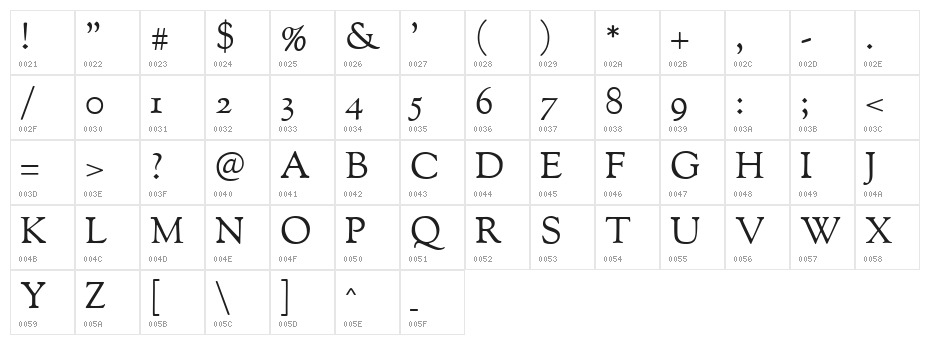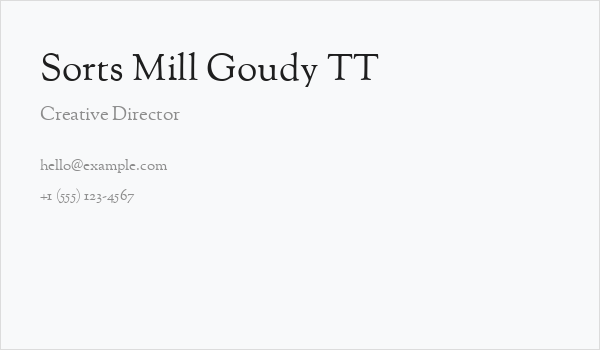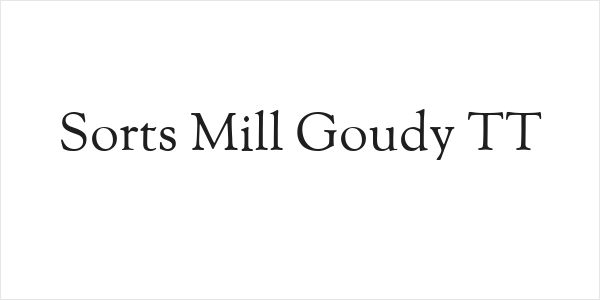
Sorts Mill Goudy TT Font
Sorts Mill Goudy TT Description
This font exudes a classic and timeless elegance, characterized by its refined serif details and balanced proportions. The uppercase letters stand tall with a slight contrast in stroke thickness, providing a sense of authority and sophistication. The lowercase letters maintain a harmonious flow, with gentle curves and a moderate x-height that enhances readability. Numerals are designed with clarity and precision, making them suitable for both text and display purposes. The special characters are thoughtfully crafted, ensuring consistency across the entire typeface. Overall, this font is versatile, offering a blend of traditional aesthetics with modern functionality.
| Use Case | Body text, Headlines, Editorial design |
| Proposed Projects | Ideal for book typesetting, editorial design, branding, and formal invitations. |